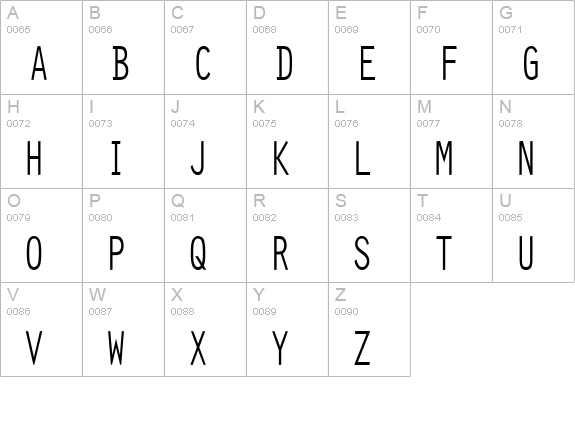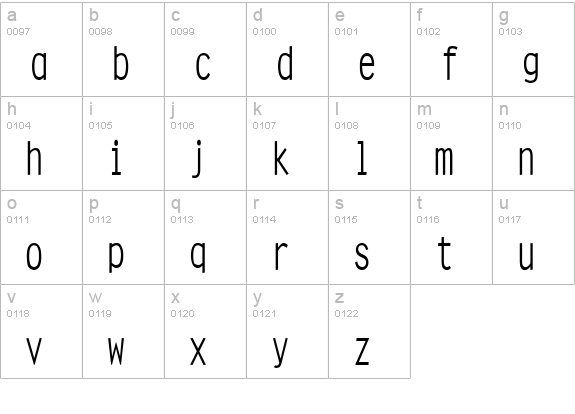
Clean Condensed Normal is the standard, neutral, condensed-width variant in the Clean typeface family \xE2\x80\x94 well suited to general body text, paragraphs, and standard typographic work.